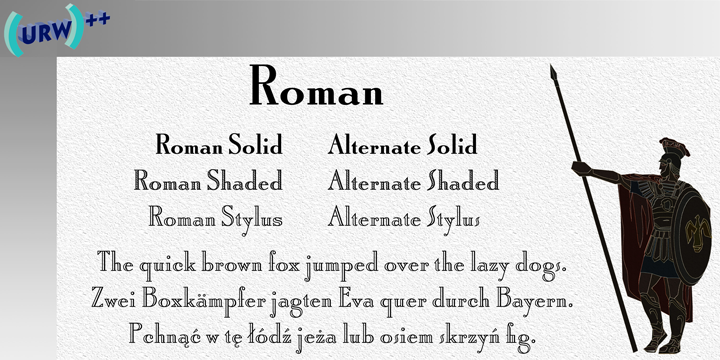
Roman Shaded Font Free Download is a classic serif typeface enhanced with elegant shading effects, giving your designs a three-dimensional and sophisticated look. Ideal for book covers, editorial designs, branding, and invitations, this font adds a vintage yet timeless charm.
With its detailed shadows and refined strokes, Roman Shaded Font Free Download stands out in headlines and display texts, creating an impressive visual impact while maintaining readability.
Add a touch of historical elegance and depth to your creative projects with Roman Shaded Font Free Download. If you want a font that blends classic style with modern shading, Roman Shaded is a perfect choice.